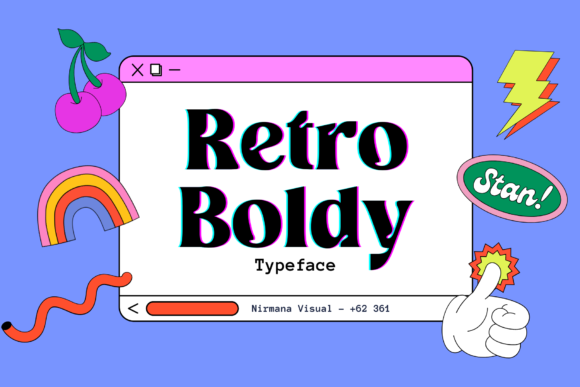
Unleash the vintage charm of the 90s with Retro Boldy Font! This captivating serif typeface transports you back to an era of bold designs and nostalgic appeal. Crafted by the talented Sigit Dwipa, Retro Boldy embodies the spirit of bygone times with its elegant curves and playful touches.
Step into a world of creative possibilities as you harness the power of Retro Boldy. Its unique character adds a touch of timeless flair to your designs, making it an exceptional choice for product packaging that demands attention. Bring your branding projects to life with a logo that exudes both sophistication and a hint of nostalgia.
Envision the impact Retro Boldy will make on your magazine covers, transforming them into breathtaking works of art that command attention. Elevate your social media presence with posts and stories that pop with personality and vintage charm. Capture the essence of special moments by incorporating Retro Boldy into your wedding invitations, adding a touch of elegance that will be cherished for years to come.
Beyond its aesthetic appeal, Retro Boldy is a font that empowers you to express yourself freely. Let your words dance across the screen or page, carried by the graceful strokes of this timeless typeface. Whether you seek to create captivating headlines, engaging body copy, or simply add a touch of retro magic to your designs, Retro Boldy is the font that will make your creations shine.
Embrace the allure of Retro Boldy Font today and embark on a creative journey filled with vintage charm and endless possibilities!